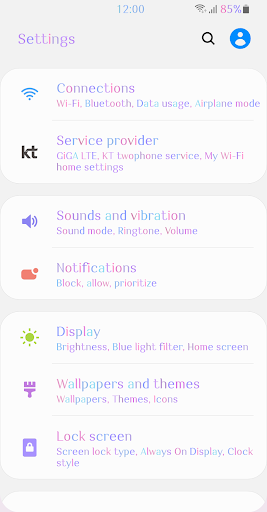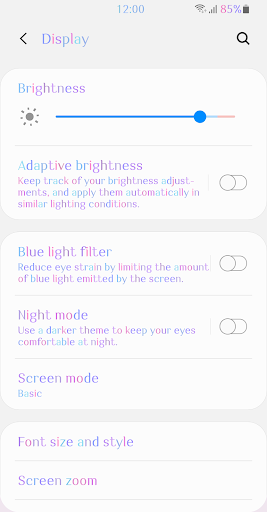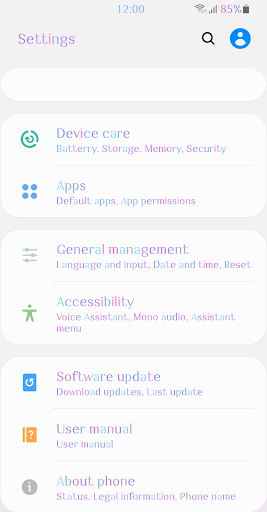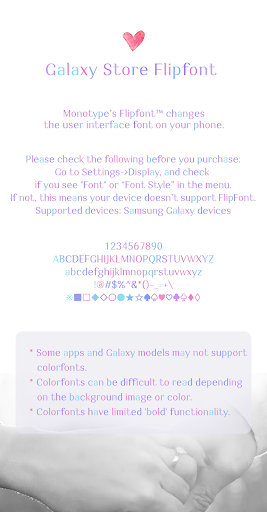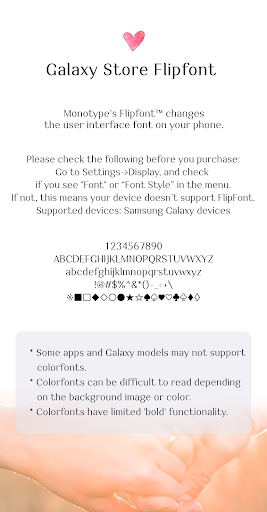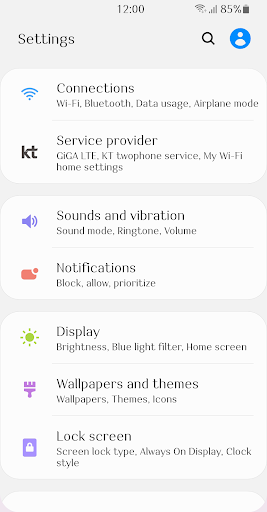
ZF Promise
This font is a semi-serif typeface that gives a sophisticated look in terms of design.
The difference in thickness between horizontal and vertical strokes gives a sense of stability, and moderate serifs give a comfortable impression.
One day you came and captured my heart.
We held each other's hands and promised to be together forever.
We believed in each other's love and promised a future with sparkling hope.